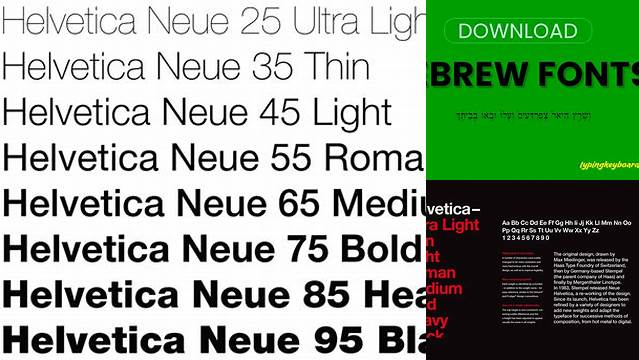
1. Understanding the Appeal of Helvetica Font
Alright guys, let's dive into why Helvetica is such a big deal in the design world. This font, known for its clean, legible, and neutral design, has been a favorite among designers for decades. Its simplicity makes it incredibly versatile, suitable for everything from corporate branding to editorial design. The appeal lies in its ability to convey information without drawing too much attention to itself. It’s like the unsung hero of typography, always reliable and effective. Think about the logos and signage you see every day; chances are, Helvetica is lurking somewhere, doing its job without you even realizing it. Its timeless quality ensures that it remains a staple in the design community, continually adapted and reinterpreted for modern applications. Whether you're working on a sleek, minimalist website or a classic print campaign, Helvetica offers a sense of clarity and professionalism that's hard to beat. So, next time you're choosing a font, remember the power of Helvetica and its enduring legacy.
2. Exploring Helvetica Hebrew Font Variations
When it comes to Helvetica Hebrew font, you're stepping into a world where classic design meets a different linguistic structure. Unlike the standard Latin alphabet, Hebrew reads from right to left, and the letterforms have their own unique characteristics. The challenge in creating a Hebrew version of Helvetica is maintaining the font's original simplicity and clarity while adapting it to the nuances of the Hebrew script. This means ensuring that the Hebrew characters are just as legible and aesthetically pleasing as their Latin counterparts. You'll find variations that range from traditional to modern, each offering a slightly different feel. Some might have more rounded forms, while others are more angular and geometric. Exploring these variations allows you to find the perfect match for your project, whether it's a bilingual website, a translated document, or a creative design that blends Hebrew and Latin elements. Understanding the subtle differences in these variations can significantly enhance the overall impact and readability of your text. So, take your time, experiment with different styles, and discover the beauty of Helvetica adapted for the Hebrew language.
4. Distinguishing Helvetica Roman Font Styles
Helvetica Roman font is essentially the standard, upright version of Helvetica. It's the foundation upon which all other styles are built. What sets it apart is its clean lines, uniform stroke weight, and lack of ornamentation. This makes it incredibly versatile and easy to read in a variety of contexts. You'll find it used extensively in body text, headlines, and signage. Within the Roman style, there are subtle variations to consider. For example, different weights (such as light, regular, and bold) can significantly impact the visual appearance of your text. A lighter weight might be ideal for elegant, understated designs, while a bolder weight can add emphasis and impact. Additionally, you might encounter condensed or expanded versions of the Roman style, which alter the width of the characters to fit specific design constraints. Understanding these nuances allows you to choose the perfect Helvetica Roman style for your project, ensuring optimal readability and visual harmony. So, when in doubt, start with the classic Roman style and then explore the variations to fine-tune your typography.
8. Comparing Helvetica with Other Sans-Serif Fonts
Helvetica stands out in the world of sans-serif fonts, but how does it stack up against its competitors? Fonts like Arial, Univers, and Futura are often compared to Helvetica due to their similar geometric and minimalist designs. Arial, for example, is often considered a close alternative, but it has subtle differences in its letterforms that make it less refined than Helvetica. Univers, designed by Adrian Frutiger, is another notable sans-serif font known for its legibility and versatility. However, Univers has a more structured and systematic design compared to Helvetica's more neutral appearance. Futura, with its strong geometric shapes, offers a more modern and stylized look, making it suitable for different design contexts than Helvetica. The key difference often lies in the details: Helvetica's slightly condensed letterforms and uniform stroke weight give it a distinct visual appeal. While other sans-serif fonts might offer similar functionality, Helvetica's timeless design and widespread recognition make it a top choice for designers. Understanding these comparisons can help you choose the best font for your project, ensuring it aligns with your design goals and aesthetic preferences.
9. Using Helvetica in Web Design
When it comes to web design, Helvetica is a classic choice for a reason. Its clean and legible design makes it incredibly versatile for various online applications. Whether you're designing a minimalist blog, a corporate website, or an e-commerce platform, Helvetica can provide a sense of clarity and professionalism. One of the key advantages of using Helvetica on the web is its excellent readability, even at smaller font sizes. This is crucial for ensuring a positive user experience, as visitors can easily scan and digest the content on your site. Additionally, Helvetica pairs well with a wide range of other fonts, allowing you to create visually appealing and balanced typography. When using Helvetica in web design, consider factors such as font weight, line height, and letter spacing to optimize readability. Use CSS to control these properties and ensure that your text looks crisp and clear on different devices. Remember, the goal is to create a seamless and enjoyable reading experience for your audience, and Helvetica can be a valuable tool in achieving that objective. So, embrace the timeless appeal of Helvetica and elevate your web design with its understated elegance.
10. Utilizing Helvetica in Print Media
Helvetica is just as impactful in print media as it is online, guys. Its clean lines and legible letterforms make it a go-to choice for everything from books and magazines to brochures and posters. The versatility of Helvetica allows it to adapt to a wide range of print applications, ensuring that your message is conveyed clearly and effectively. When using Helvetica in print, consider the weight and style of the font to create visual hierarchy and emphasis. Bold weights can be used for headlines, while lighter weights are ideal for body text. Pay attention to kerning and leading to optimize readability and create a visually pleasing layout. Helvetica's neutral design also makes it easy to pair with other fonts, allowing you to create dynamic and engaging print designs. Whether you're working on a sophisticated annual report or a vibrant marketing campaign, Helvetica can provide a sense of timeless elegance and professionalism. So, embrace the power of Helvetica and elevate your print designs with its understated charm.
11. Pairing Helvetica with Other Fonts
One of the great things about Helvetica is how well it pairs with other fonts. Its neutral and versatile design makes it a perfect complement to a wide range of typefaces. For a classic and sophisticated look, try pairing Helvetica with a serif font like Times New Roman or Garamond. The contrast between the clean, sans-serif lines of Helvetica and the more traditional serifs can create a visually appealing and balanced typography. If you're aiming for a more modern and minimalist aesthetic, consider pairing Helvetica with another sans-serif font, such as Open Sans or Roboto. These fonts share a similar design philosophy, creating a cohesive and harmonious look. When pairing fonts, pay attention to the overall visual hierarchy and ensure that the fonts complement each other rather than compete. Use different font weights and sizes to create emphasis and guide the reader's eye. Experiment with different combinations to find the perfect pairing that aligns with your design goals and aesthetic preferences. With a little creativity, you can create stunning typography that showcases the versatility of Helvetica and its ability to enhance any design project.
12. The History and Evolution of Helvetica Font
The history of Helvetica font is a fascinating journey through the world of typography. Designed in 1957 by Max Miedinger and Eduard Hoffmann at the Haas Type Foundry in Switzerland, Helvetica was originally named Neue Haas Grotesk. The goal was to create a neutral and highly legible typeface that could be used in a variety of applications. In 1960, the font was renamed Helvetica, derived from Helvetia, the Latin name for Switzerland. The font quickly gained popularity and became a staple in corporate branding, editorial design, and signage. Its clean lines, uniform stroke weight, and lack of ornamentation made it incredibly versatile and timeless. Over the years, Helvetica has undergone several revisions and adaptations, including Neue Helvetica, which features a more comprehensive range of weights and styles. Despite its widespread use and occasional criticism, Helvetica remains one of the most iconic and influential typefaces in the world. Its enduring legacy is a testament to its timeless design and its ability to convey information clearly and effectively. So, next time you see Helvetica, remember its rich history and the impact it has had on the world of typography.
13. Helvetica in Branding and Logo Design
When it comes to branding and logo design, Helvetica is a powerhouse. Its clean, unassuming, and highly legible design makes it an ideal choice for creating logos and brand identities that stand the test of time. Many iconic brands, such as BMW, American Airlines, and Target, have used Helvetica in their logos, demonstrating its versatility and widespread appeal. The key to Helvetica's success in branding lies in its neutrality. It doesn't impose a particular style or personality, allowing the brand's message to take center stage. This makes it suitable for a wide range of industries and applications. When using Helvetica in logo design, consider the font weight and spacing to create a visually balanced and memorable mark. Experiment with different color combinations and layouts to find the perfect expression of your brand's identity. Remember, the goal is to create a logo that is instantly recognizable and communicates the essence of your brand. With its timeless design and universal appeal, Helvetica can be a valuable asset in achieving that objective. So, embrace the power of Helvetica and create a brand identity that resonates with your target audience.
14. The Legibility of Helvetica: Why it Matters
The legibility of Helvetica is a crucial factor in its widespread popularity. Legibility refers to the ease with which individual characters can be distinguished from one another. Helvetica's clean lines, uniform stroke weight, and generous spacing contribute to its excellent legibility, making it easy to read in a variety of contexts. This is particularly important in applications where readability is paramount, such as body text, signage, and user interfaces. When text is legible, readers can quickly and effortlessly scan and comprehend the information, leading to a more positive and engaging experience. In contrast, poorly designed or illegible fonts can cause eye strain and frustration, discouraging readers from fully engaging with the content. Helvetica's legibility is a result of careful attention to detail in its design. The letterforms are clear and distinct, with ample space around each character to prevent them from blurring together. This makes it a reliable choice for ensuring that your message is conveyed clearly and effectively. So, when choosing a font, prioritize legibility to create a positive and user-friendly experience for your audience, and consider the benefits of Helvetica's time-tested design.
15. Alternatives to Helvetica for Budget-Conscious Designers
For budget-conscious designers, the cost of licensing Helvetica can be a barrier. Luckily, there are several excellent alternatives that offer a similar aesthetic without breaking the bank. Arial is a widely available sans-serif font that closely resembles Helvetica, making it a popular choice for designers on a tight budget. While it lacks some of the refinement of Helvetica, it provides a similar level of legibility and versatility. Open Sans, available through Google Fonts, is another great alternative. It's a humanist sans-serif font with a clean and friendly appearance, making it suitable for a wide range of applications. Roboto, also available on Google Fonts, is a modern and geometric sans-serif font that offers excellent readability on screens. These free and open-source fonts can provide a similar look and feel to Helvetica, allowing you to create professional and visually appealing designs without incurring licensing fees. When choosing an alternative, consider the overall design goals and aesthetic preferences of your project. Experiment with different fonts to find the perfect match that aligns with your vision. With a little creativity, you can achieve stunning results without exceeding your budget.
16. The Controversy Surrounding Helvetica Font
Despite its widespread popularity, Helvetica has faced its share of controversy. Some critics argue that its neutrality can lead to a lack of personality and distinctiveness in design. They claim that Helvetica is overused and has become a symbol of corporate homogenization. Others argue that its simplicity is its greatest strength, allowing it to adapt to a wide range of applications without imposing a particular style or aesthetic. The debate over Helvetica often revolves around the balance between functionality and expressiveness in design. While some designers prioritize creating unique and visually striking typography, others value legibility and clarity above all else. Helvetica's enduring legacy is a testament to its ability to meet the needs of a diverse range of design projects. Whether you love it or hate it, there's no denying its impact on the world of typography. The controversy surrounding Helvetica serves as a reminder that design is subjective and that there is no one-size-fits-all solution. Ultimately, the choice of typeface depends on the specific goals and context of the project.
17. Helvetica's Influence on Modern Typography
Helvetica's influence on modern typography is undeniable. Its clean lines, neutral design, and excellent legibility have set a standard for sans-serif typefaces that continues to inspire designers today. Many modern fonts, such as Open Sans and Roboto, owe a debt to Helvetica's pioneering design. Helvetica's impact extends beyond font design to influence the overall approach to typography. Its emphasis on clarity and functionality has encouraged designers to prioritize legibility and user experience in their work. This has led to a greater focus on creating typefaces that are easy to read and understand, regardless of the context. Helvetica's influence can be seen in the prevalence of sans-serif fonts in web design, mobile apps, and user interfaces. Its timeless appeal and adaptability have made it a staple in the digital age. As typography continues to evolve, Helvetica's legacy will continue to shape the way designers approach the art of letterforms. Its enduring influence is a testament to its innovative design and its ability to meet the changing needs of the design world.
18. Designing with Helvetica: Best Practices
When designing with Helvetica, there are several best practices to keep in mind. First and foremost, prioritize legibility. Choose a font weight and size that is easy to read in the intended context. Use appropriate line height and letter spacing to optimize readability and avoid eye strain. Consider the overall visual hierarchy of your design and use Helvetica to create emphasis and guide the reader's eye. Experiment with different font pairings to find combinations that complement Helvetica's neutrality and enhance the overall aesthetic. Avoid overuse of Helvetica, as it can lead to a monotonous and uninspired design. Use it strategically to create a sense of clarity and professionalism. Pay attention to kerning and tracking to ensure that the letterforms are evenly spaced and visually balanced. When designing for the web, use CSS to control the appearance of Helvetica and ensure that it renders correctly on different devices and browsers. By following these best practices, you can harness the power of Helvetica to create stunning and effective designs that stand the test of time.
19. The Emotional Impact of Helvetica in Design
The emotional impact of Helvetica in design is often subtle but significant. Its neutrality allows it to convey a sense of objectivity, clarity, and professionalism. This can be particularly effective in situations where you want to communicate information without adding unnecessary emotional baggage. Helvetica's clean lines and unassuming appearance can also create a sense of simplicity and elegance. This can be appealing to audiences who value minimalism and understated design. However, some critics argue that Helvetica's neutrality can also make it feel cold and impersonal. They claim that it lacks the warmth and character of more expressive typefaces. The emotional impact of Helvetica ultimately depends on the context in which it is used and the overall design aesthetic. When used thoughtfully, it can create a sense of trust and reliability. When used carelessly, it can feel bland and uninspired. As a designer, it's important to be aware of the potential emotional impact of your font choices and to use them strategically to achieve your desired effect.
20. Helvetica and Accessibility: Ensuring Inclusivity
When it comes to Helvetica and accessibility, it's crucial to ensure inclusivity for all users. While Helvetica is generally considered a legible typeface, there are several factors to consider when using it in accessible designs. Choose a font weight and size that is easy to read for people with visual impairments. Use sufficient contrast between the text and background colors to improve readability. Avoid using thin or light weights, as they can be difficult to see for some users. Use appropriate line height and letter spacing to optimize readability and avoid eye strain. Consider using a larger font size or providing users with the option to increase the font size. Use clear and concise language to make the content easier to understand. Provide alternative text for images and other non-text elements. Test your designs with assistive technologies, such as screen readers, to ensure that they are accessible to all users. By following these guidelines, you can use Helvetica to create accessible and inclusive designs that meet the needs of a diverse audience.
21. The Future of Helvetica in a Digital World
The future of Helvetica in a digital world looks bright, guys. Despite the emergence of countless new typefaces, Helvetica's timeless design and versatility continue to make it a popular choice for designers. In the digital realm, Helvetica's legibility and clean lines are particularly valuable. Its ability to render clearly on screens of all sizes makes it an ideal choice for websites, mobile apps, and user interfaces. As technology evolves, Helvetica is likely to adapt and evolve as well. New versions and variations of the font may be developed to optimize its performance on emerging digital platforms. Its enduring influence on typography ensures that it will remain a relevant and influential typeface for years to come. Whether you're designing for the web, mobile, or virtual reality, Helvetica can provide a sense of clarity and professionalism that enhances the user experience. So, embrace the future of Helvetica and continue to explore its potential in the ever-changing digital landscape.
22. Mastering Kerning and Tracking with Helvetica
To really nail your typography, you gotta master kerning and tracking with Helvetica. Kerning is adjusting the space between individual letters to make them look balanced and visually appealing. Helvetica, with its clean lines, can sometimes look a bit off if the kerning isn't right. For example, the space between an 'A' and a 'V' might need some tweaking to look just right. Tracking, on the other hand, is about adjusting the overall spacing between all the letters in a word or line of text. This can be useful for making your text more readable or for fitting it into a specific space. When working with Helvetica, pay close attention to how the letters interact with each other. Use your design software to fine-tune the kerning and tracking until everything looks harmonious. A well-kerned and tracked Helvetica font can make a huge difference in the overall impact of your design, giving it a polished and professional look. So, take the time to learn the art of kerning and tracking, and you'll be amazed at how much better your Helvetica typography can look.
23. Finding Similar Fonts to Helvetica on Google Fonts
Looking for something like Helvetica on Google Fonts? You're in luck! Google Fonts has some great options that capture a similar vibe without costing you a dime. One standout is Roboto, a sans-serif font that's clean, modern, and super readable. It's a solid choice for body text and headlines alike. Another one to check out is Open Sans, known for its friendly and approachable feel. It's a bit more rounded than Helvetica, but still maintains that classic sans-serif simplicity. Montserrat is another fantastic pick, offering a geometric design that's both stylish and versatile. All these fonts are free to use and easy to implement on your website or design project. Just head over to Google Fonts, search for these names, and you'll be able to download and start using them in no time. So, if you're after that Helvetica look without the Helvetica price tag, Google Fonts has got you covered!
24. Using Helvetica for Mobile App Design
Helvetica is a solid choice for mobile app design because it's clean, legible, and works well on screens of all sizes. When you're designing for mobile, readability is key, and Helvetica delivers. Its simple design ensures that text remains clear and easy to read, even on smaller screens. Plus, it's versatile enough to use for everything from menu items to body text. When using Helvetica in your mobile app, pay attention to font sizes and line spacing. You want to make sure that the text is large enough to be easily readable, but not so large that it takes up too much space. Also, consider the overall color scheme of your app. Helvetica pairs well with a variety of colors, but you'll want to choose a combination that provides good contrast and doesn't strain the user's eyes. With its timeless appeal and excellent readability, Helvetica can help you create a mobile app that's both functional and visually appealing.
25. Licensing Considerations for Helvetica Fonts
Before you start using Helvetica fonts, it's important to understand the licensing considerations. Helvetica is a commercial font, which means you typically need to purchase a license to use it legally. The specific terms of the license will vary depending on the vendor and the intended use. For example, a license for personal use might be cheaper than a license for commercial use. Some licenses also restrict how you can embed the font in digital documents or websites. If you're unsure about the licensing terms, it's always best to check with the font vendor or consult a legal professional. Using a font without the proper license can lead to legal issues and financial penalties. So, before you incorporate Helvetica into your next project, take the time to understand the licensing requirements and make sure you're in compliance. It's a small investment that can save you a lot of headaches down the road.
26. The Psychological Effects of Using Helvetica
The psychological effects of using Helvetica are pretty interesting. Because it’s so neutral and clean, Helvetica often conveys a sense of professionalism, clarity, and objectivity. It’s like the font equivalent of a crisp white shirt – reliable and straightforward. This can make it a great choice for brands that want to project an image of trustworthiness and competence. However, some argue that Helvetica's neutrality can also make it feel a bit sterile or impersonal. It might not be the best choice if you're trying to evoke strong emotions or create a highly unique brand identity. The key is to consider the overall message you're trying to convey and choose a font that aligns with your brand's personality. Helvetica can be a powerful tool, but it's important to use it thoughtfully and intentionally.
27. Exploring Cyrillic Versions of Helvetica
Did you know there are Cyrillic versions of Helvetica? Just like the Hebrew adaptation, these versions adapt the classic Helvetica design to the Cyrillic alphabet, which is used in languages like Russian, Ukrainian, and Bulgarian. The challenge is to maintain the font's signature simplicity and legibility while working with the unique shapes of Cyrillic letters. The result is a font that feels familiar yet authentic to Cyrillic readers. If you're working on a project that involves Cyrillic text, using a Cyrillic version of Helvetica can help create a cohesive and professional look. It ensures that your typography is consistent across different languages and scripts. When choosing a Cyrillic version of Helvetica, pay attention to the details. Make sure the letterforms are well-designed and easy to read. A good Cyrillic adaptation will capture the essence of Helvetica while respecting the nuances of the Cyrillic alphabet.
28. How Helvetica Became a Design Standard
So, how did Helvetica become a design standard? Well, it's a story of perfect timing and excellent design. Created in 1957 by Swiss designer Max Miedinger, Helvetica was designed to be a neutral, clear, and highly legible typeface. This came at a time when modernism was taking hold, and designers were looking for fonts that were clean and functional. Helvetica fit the bill perfectly. Its simplicity made it incredibly versatile, and it quickly became a favorite for everything from corporate logos to signage. Major companies like BMW, American Airlines, and Target adopted Helvetica, further solidifying its status as a design standard. Its widespread use also made it familiar and comfortable for readers, which further contributed to its popularity. Today, Helvetica remains one of the most widely used fonts in the world, a testament to its timeless design and its ability to meet the needs of a wide range of design projects.
29. Best Software for Editing and Customizing Helvetica Fonts
If you're looking to get hands-on and edit or customize Helvetica fonts, you'll need the right software. For professional-level work, Adobe Illustrator and Adobe Photoshop are industry standards. Illustrator is great for creating and manipulating vector graphics, making it perfect for tweaking letterforms and creating custom variations of Helvetica. Photoshop, on the other hand, is better suited for raster-based editing and adding effects to your typography. If you're on a budget, Inkscape is a free and open-source alternative to Illustrator that offers many of the same features. For a more specialized font editing experience, consider FontLab Studio or Glyphs. These programs are specifically designed for creating and modifying fonts, giving you precise control over every aspect of the typeface. No matter which software you choose, make sure you have a solid understanding of typography principles before you start making changes. Editing fonts can be a delicate process, and it's easy to accidentally ruin the readability or aesthetic appeal of the typeface.
30. Helvetica Inspired Art and Design Projects
There's a ton of art and design projects inspired by Helvetica. Because it's such a classic and recognizable font, it's become a favorite subject for designers and artists alike. You'll find everything from posters and prints that celebrate Helvetica's simplicity to sculptures and installations that explore its form and structure. Some artists use Helvetica as a starting point for creating entirely new typefaces, while others incorporate it into larger mixed-media pieces. One of the most famous examples is the 2007 documentary Helvetica, which explores the history and impact of the font on visual culture. The film features interviews with leading designers and typographers, and it offers a fascinating look at the world of typography. Whether you're a designer, an artist, or just a font enthusiast, exploring Helvetica-inspired projects can be a great way to appreciate the beauty and versatility of this iconic typeface. So, take a look around and see what you can find – you might be surprised at the creativity and innovation that Helvetica has inspired!